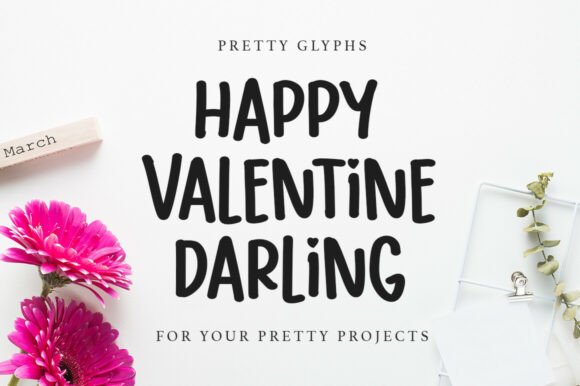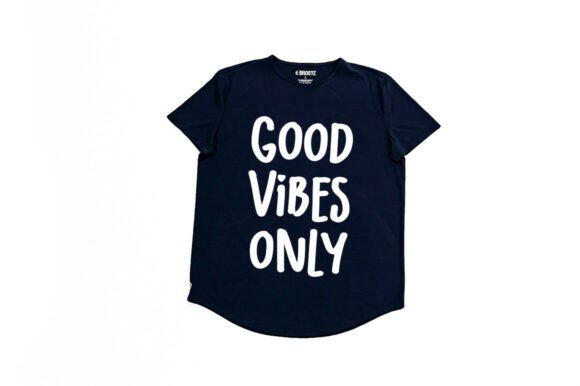
Introducing Delight Stroke Font: The Embodiment of Playful Charm and Approachable Warmth
In the world of typography, few fonts manage to capture the essence of playful charm and approachable warmth as effectively as the Delight Stroke font. This friendly, handwritten display typeface has been specifically designed to infuse projects with a personal, relatable, and fun vibe, making it an ideal choice for a wide range of creative endeavors.
The Characteristics of Delight Stroke Font
The Delight Stroke font boasts rounded, soft edges and a consistent weight that mimics the feel of a masterfully written marker script. This unique blend of characteristics lends the font an air of whimsy and approachability, perfect for projects that require a touch of personality. Whether you’re working on children’s book titles, nursery decor, or social media graphics for brands that value positivity and community, the Delight Stroke font is sure to make a lasting impression.
A Font with a Personal Touch
One of the standout features of the Delight Stroke font is the subtle heart detail on the ‘i’. This charming touch adds a level of sweetness and personality to the font, making it instantly memorable. It’s small details like these that can elevate a design from ordinary to extraordinary, and the Delight Stroke font is no exception.
Ideal Applications for Delight Stroke Font
So, what types of projects are best suited to the Delight Stroke font? The possibilities are endless, but here are a few ideas to get you started:
- Children’s book titles: The Delight Stroke font is a natural fit for kids’ literature, adding a playful and engaging touch to book covers and interior design.
- Nursery decor: The font’s soft, rounded edges and warm feel make it perfect for nursery decor, from wall art to baby shower invitations.
- Social media graphics: Brands that value positivity and community will love the Delight Stroke font for their social media graphics, adding a personal and approachable touch to their online presence.
- Greeting cards: The font’s high legibility and charming personality make it an excellent choice for greeting cards, from birthday wishes to get well messages.
- DIY blog headers: Add a touch of personality to your blog with the Delight Stroke font, perfect for DIY and crafting blogs.
- Eco-friendly product packaging: The Delight Stroke font is also well-suited to eco-friendly product packaging, conveying a sense of warmth and approachability while highlighting a brand’s commitment to sustainability.
Pairing Delight Stroke Font with Color and Illustrations
To get the most out of the Delight Stroke font, try pairing it with bright, pastel color palettes and whimsical illustrations. This combination creates a cohesive, joyful brand identity that’s sure to capture the attention of your audience. The font’s high legibility ensures that your message remains the star of the show, even in busy layouts.
Tips for Working with Delight Stroke Font
Here are a few tips to keep in mind when working with the Delight Stroke font:
- Experiment with different colors: The Delight Stroke font works beautifully with a range of colors, from bright and bold to soft and pastel.
- Don’t be afraid to mix and match: Try pairing the Delight Stroke font with other fonts and illustrations to create a unique and eye-catching design.
- Keep it playful: The Delight Stroke font is all about playful charm and approachable warmth, so don’t be afraid to have fun with it!
In conclusion, the Delight Stroke font is a versatile and charming typeface that’s perfect for designers and crafters looking to add a touch of personality to their projects. With its rounded, soft edges and consistent weight, this font is sure to bring a sense of playful charm and approachable warmth to any design. Whether you’re working on children’s book titles, nursery decor, or social media graphics, the Delight Stroke font is an excellent choice. So why not give it a try and see the difference it can make in your designs?